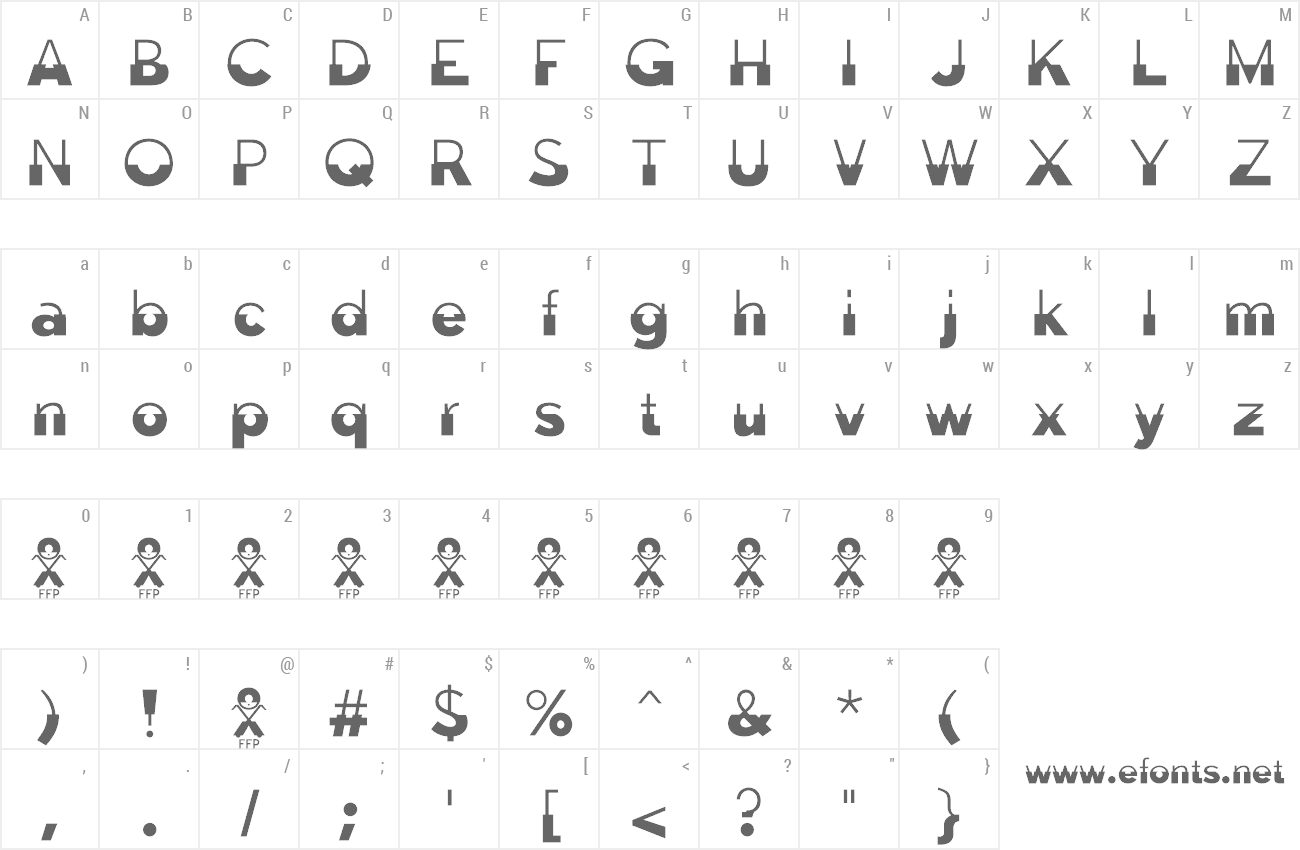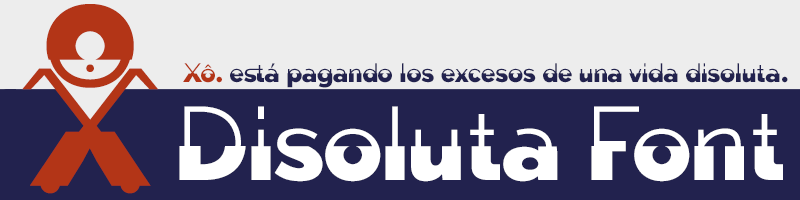
Dissolute is a typographical experiment fusion of two sans fonts with different weights, for which I used my previous Typefaces: Tabarra Black & Light. • Only for personal use. • Numbers in my web. • Commercial version available with Italics: https://defharo.com/fonts/disoluta-font/ ====================== Disoluta es un experimento tipográfico de fusión de dos fuentes sans con pesos diferentes, para lo cual he usado mis anteriores tipografías: Tabarra Light y Black. • Sólo para uso personal. • Números en mi web. • Versión comercial disponible con itálicas. |